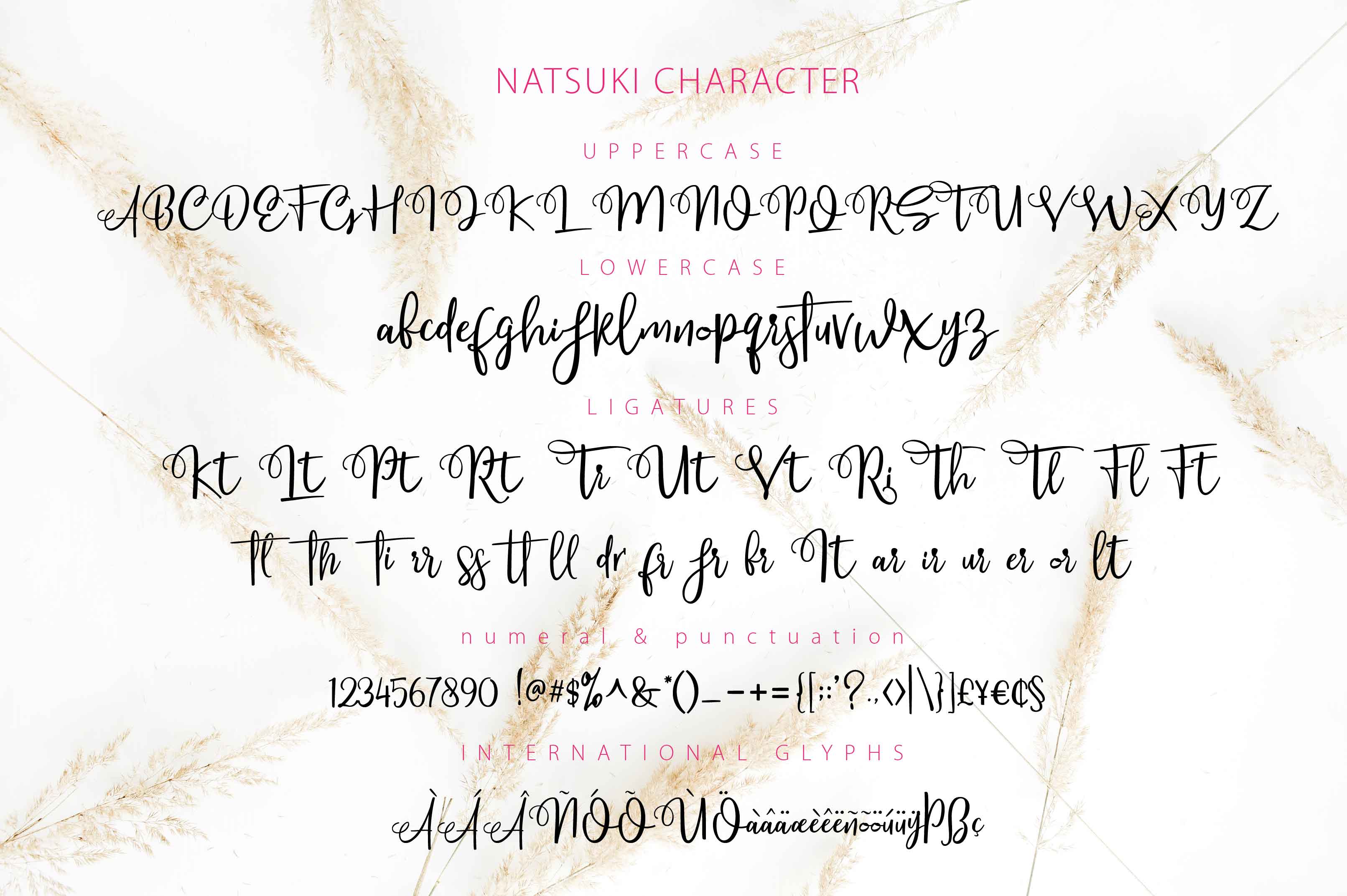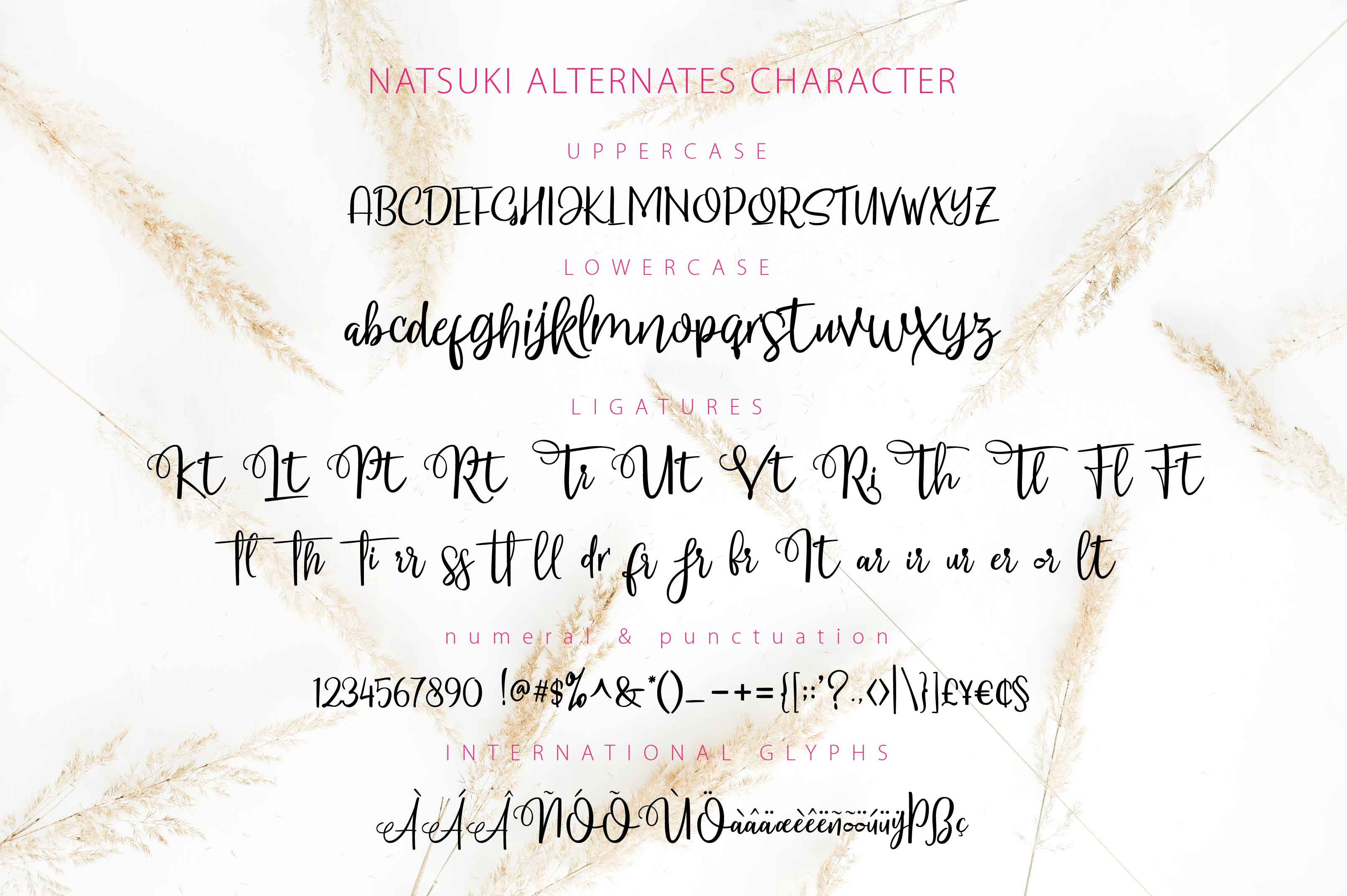
Introduction to Natsuki Font
Natsuki is a gorgeous and spiky calligraphy script font, perfect for special event designs and invitationals.
| 👤 Author | Olexstudio |
This display script is ideal for use when you want to add a romantic and classic appeal without skimping on modern style and sensibility .
Key Features of Natsuki Font